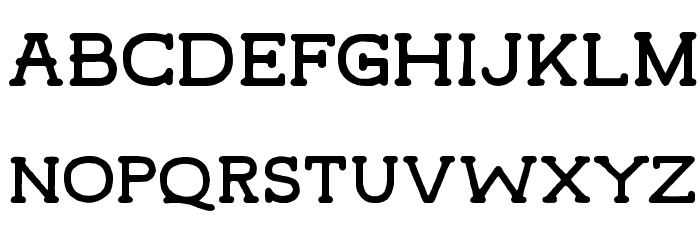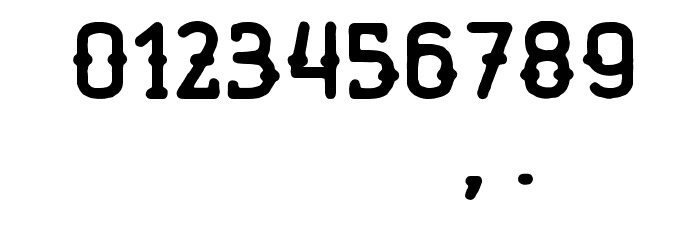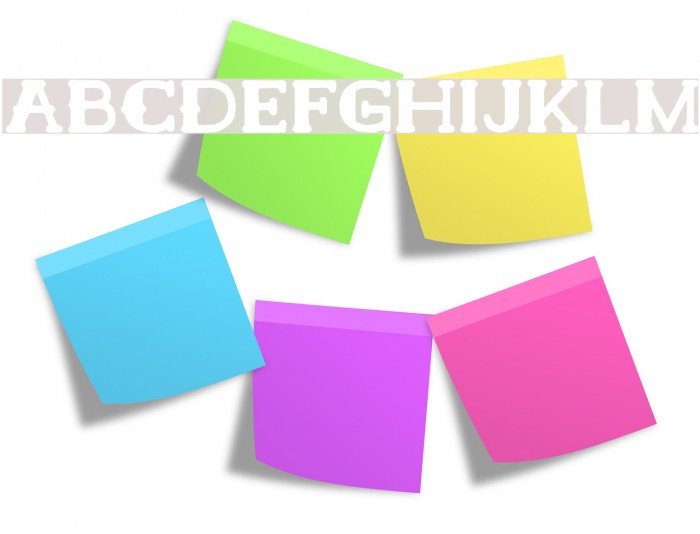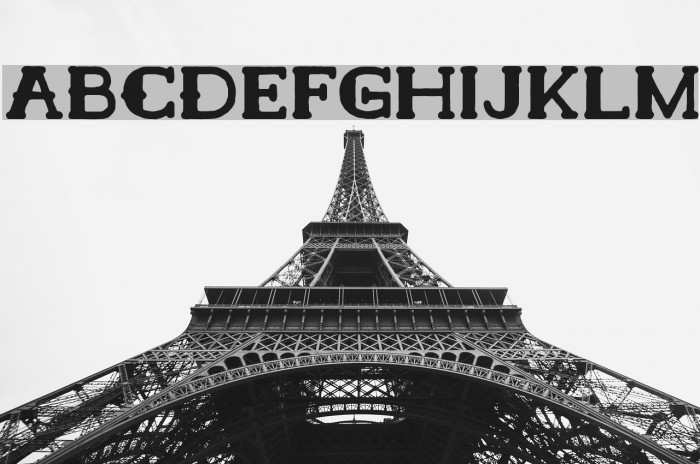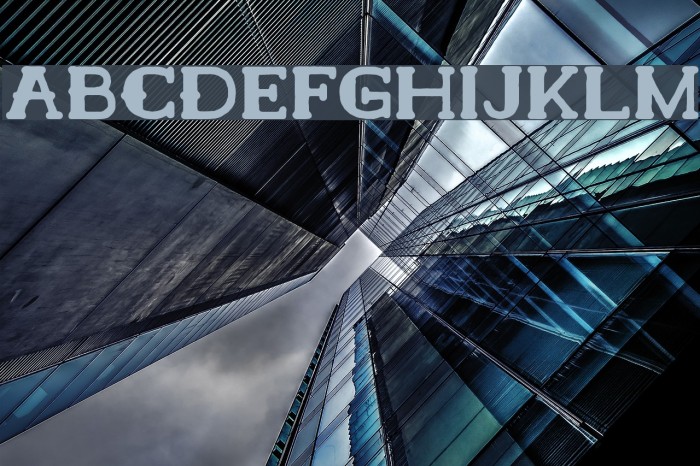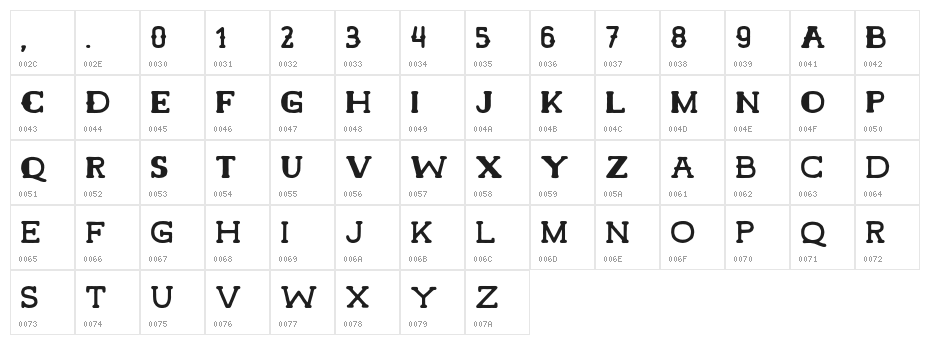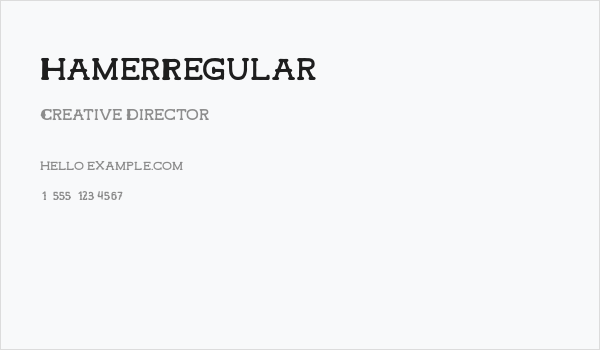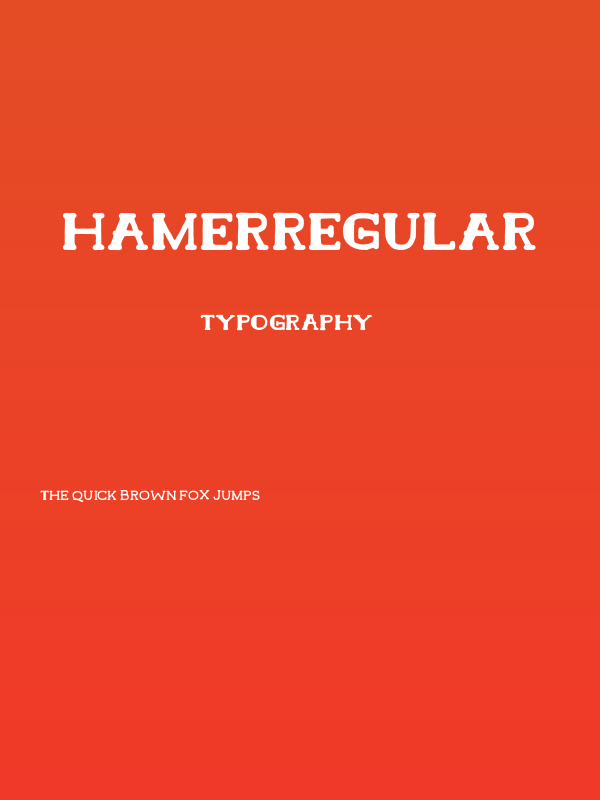
HamerRegular Font
This font features a bold and robust design with a distinct slab serif style. The characters are characterized by thick, block-like serifs that give them a strong and sturdy appearance. The uppercase letters are uniform in height, while the lowercase letters maintain a consistent baseline, enhancing readability. The numbers are equally bold, ensuring they stand out clearly. The overall design is reminiscent of vintage typefaces, often used in posters and signage. The font's unique style makes it suitable for projects that require a touch of classic elegance combined with modern boldness.
A bold slab serif font with a vintage yet modern appeal.
- Proposed Projects: Ideal for use in posters, signage, branding, and headlines where a strong, impactful presence is desired.
- Category: Slab Serif
- Overall Style: Vintage